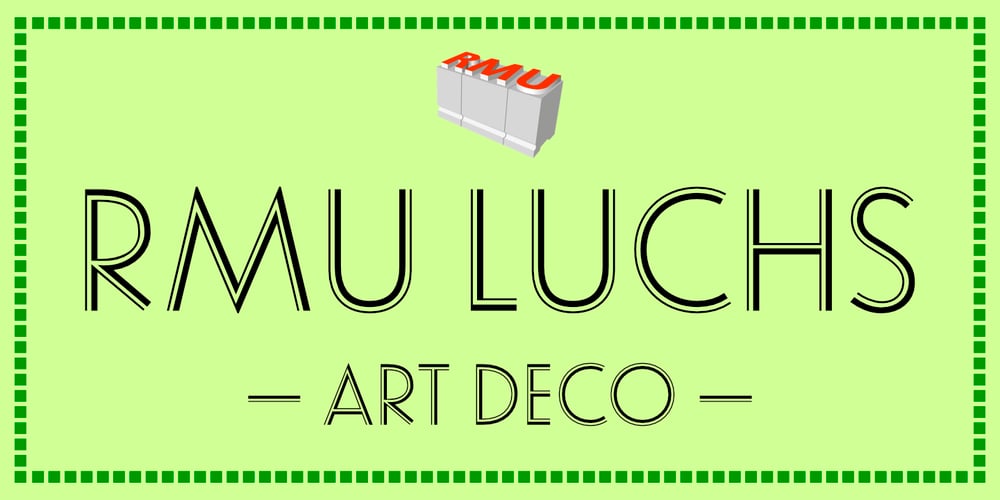
RMU Luchs Font Family was designed by published by RMU. RMU Luchs contains 1 styles and family package options. Jakob Erbar’s Art Deco font ‚Lux‘, released by Ludwig & Mayer in 1929, completely redrawn and redesign. The German umlaut glyphs Ä, Ö, and Ü come in their original form in the uppercases; in the lowercases the dieresis was placed above the letters.